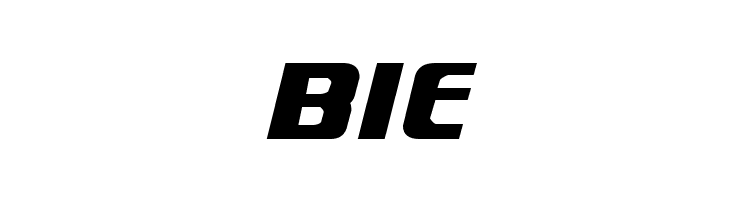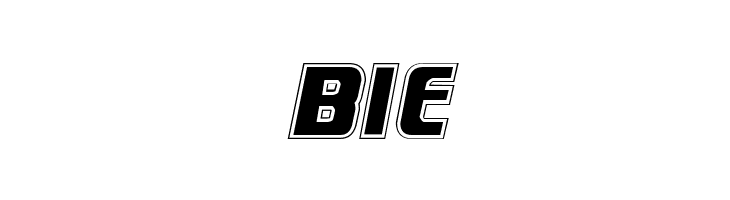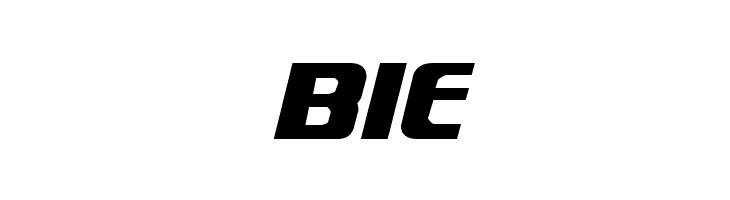
• Lightsider Academy Regular
A bold, outlined font with a futuristic and sporty aesthetic.
• Lightsider Compact Expanded
A bold, futuristic font with slanted characters and a dynamic style.
• Lightsider Compact Laser Regular
A bold, angular, and futuristic font with a compact design.
• Lightsider Compact Regular
A bold, modern font with a sleek, condensed design and angular geometric shapes.
• Lightsider Condensed
A bold, modern, and condensed font with a dynamic slant and geometric shapes.
• Lightsider Expanded
A bold, futuristic font with slanted, geometric characters.
• Lightsider Laser egular
A bold, futuristic font with angular, slanted characters.
• Lightsider Regular
A modern, dynamic font with bold, angular characters and a futuristic style.
• Lightsider Ultra-Italic
A bold, italic, and modern font with a dynamic, futuristic style.